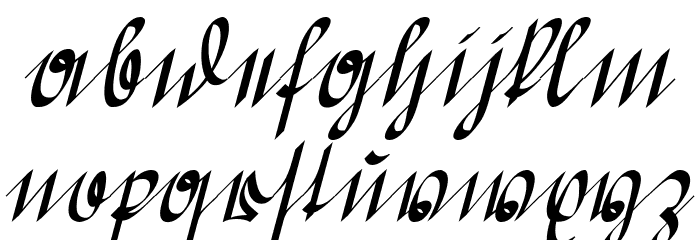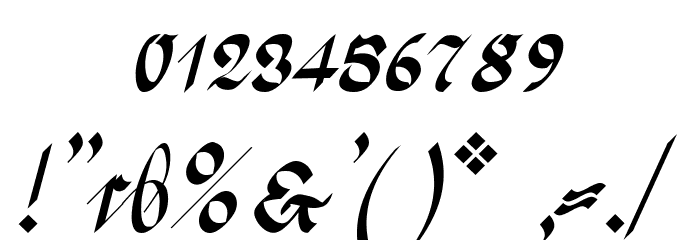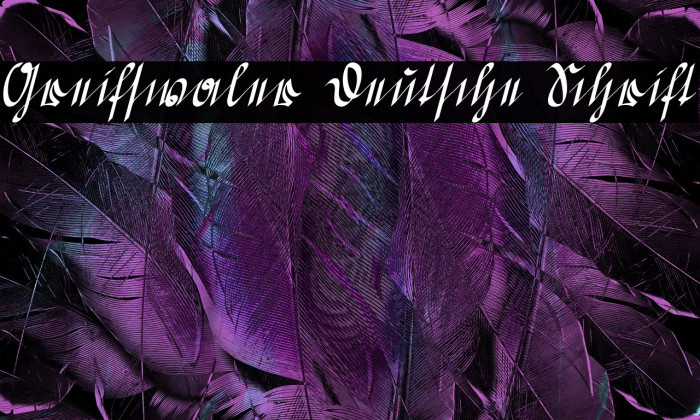
Greifswaler Deutsche Schrift Font
This font exhibits a classic and ornate style reminiscent of traditional German script. The characters are highly decorative, featuring intricate curves and flourishes that give it a distinct and historical appearance. The uppercase letters are particularly elaborate, with sweeping lines and sharp angles that create a sense of elegance and formality. The lowercase letters maintain this decorative style, though they are slightly more restrained, allowing for readability while still conveying a sense of sophistication. The numerals and special characters are consistent with the overall aesthetic, integrating seamlessly with the letterforms. This font is ideal for projects that require a touch of vintage charm and historical authenticity.
An ornate and decorative script font with a classic German style.
- Proposed Projects: Ideal for historical documents, wedding invitations, certificates, and branding that requires a vintage or formal touch.
- Category: Blackletter
- Character Spacing: Tight
- Overall Style: Vintage
- Use Case: Logos, Headlines, Decorative text